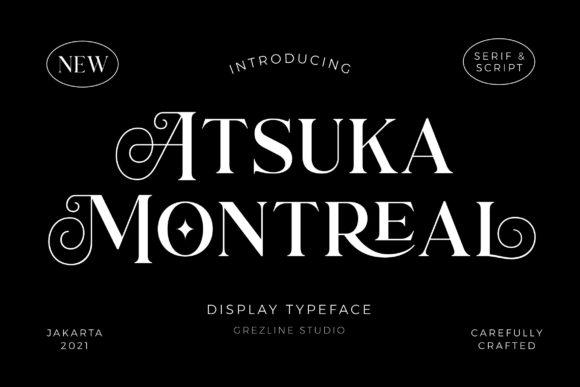
Dive into the world of fashion and sophistication with Atsuka Montreal, a serif font that exudes elegance and style. Crafted with meticulous attention to detail, Atsuka Montreal's smooth curves and confident strokes are a testament to the art of typography.
Unleash your creativity and let Atsuka Montreal elevate your fashion branding and editorial designs to new heights. This font is the epitome of luxury and grace, making your projects stand out from the crowd. Its timeless beauty will captivate your audience, leaving them spellbound by your designs.
With Atsuka Montreal, you have the power to weave tales of opulence and glamour. Its delicate serifs add a touch of refinement, while its bold presence ensures maximum impact. Say goodbye to ordinary fonts and embrace the extraordinary with Atsuka Montreal.
Immerse yourself in a world of endless possibilities. Let Atsuka Montreal ignite your imagination and transport your designs to the forefront of fashion and creativity. Its versatility knows no bounds, making it the perfect choice for logos, branding, posters, magazines, and more.
Don't settle for mediocrity—choose Atsuka Montreal and experience the pinnacle of font artistry. Let your designs shine with sophistication and allure. Embrace the future of typography and watch your projects blossom into masterpieces of visual delight.